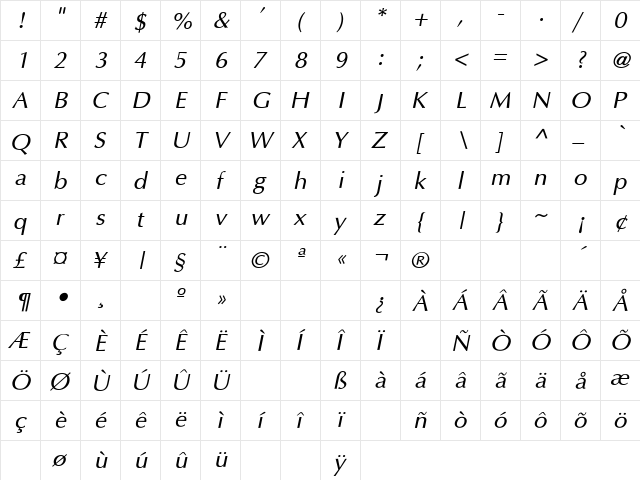
djPrimo Italic Regular
Design Context for djPrimo Italic Typeface
djPrimo Italic takes a measured approach to typography — its balanced proportions and neutral character make it a reliable workhorse for both digital and print work. The dynamic lean of this cut emphasises speed and emphasis in any layout.
Pro Tip: Use djPrimo Italic for emphasis, pull quotes, and subheadings where its slanted energy can add rhythm to the layout.